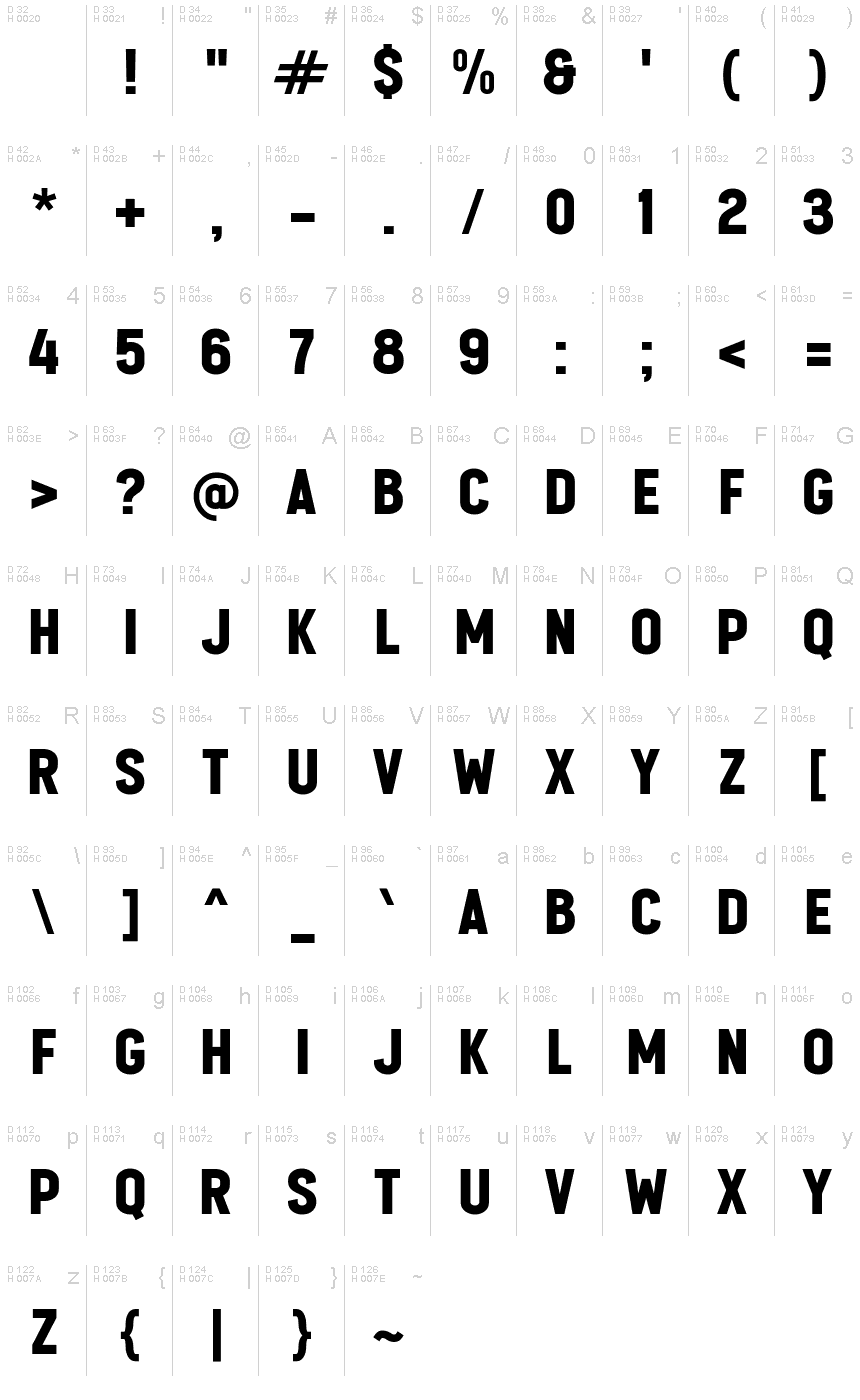
Finish
Finish, a bold and condensed sans serif font by wep, offers a modern and sleek design suitable for various projects.
Its strong and compact structure makes it perfect for headlines, logos, and branding materials. With its clean lines and distinctive letterforms, Finish adds a touch of sophistication to websites, magazines, and advertisements. The condensed width ensures maximum impact in limited space, making it ideal for packaging designs and posters.
Let Finish elevate your designs with its bold presence and contemporary style.
Its strong and compact structure makes it perfect for headlines, logos, and branding materials. With its clean lines and distinctive letterforms, Finish adds a touch of sophistication to websites, magazines, and advertisements. The condensed width ensures maximum impact in limited space, making it ideal for packaging designs and posters.
Let Finish elevate your designs with its bold presence and contemporary style.